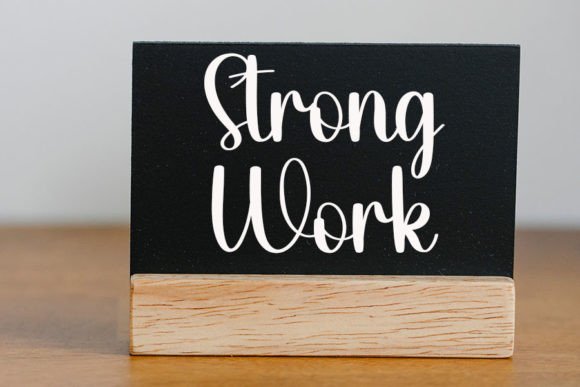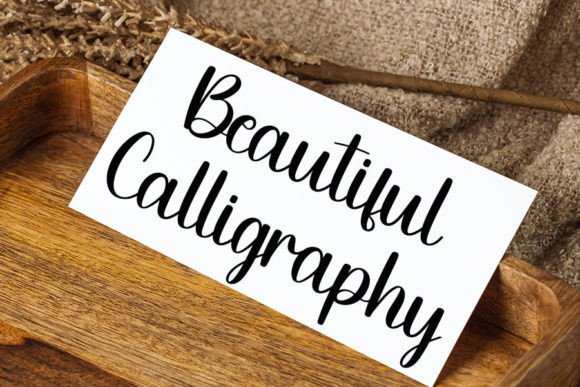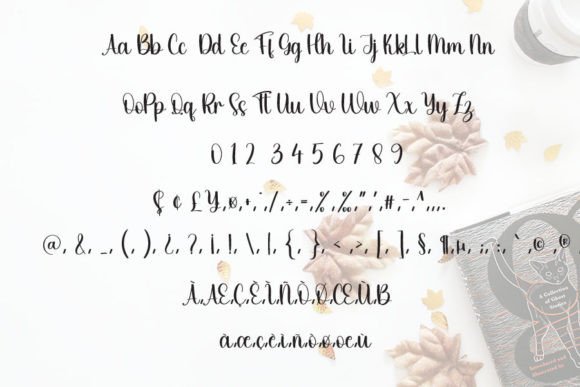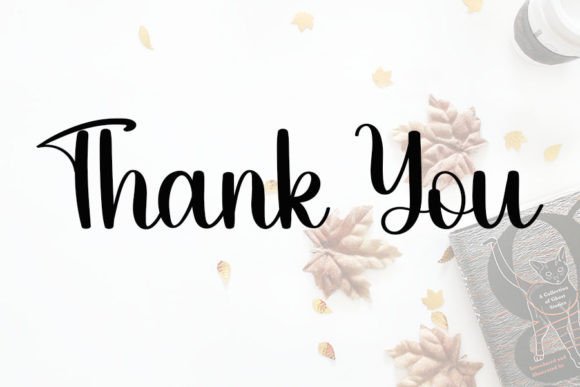
Introducing Autumn Font: The Perfect Handwritten Companion for Designers and Crafters
Are you on the hunt for a font that can add a personal touch to your digital designs, crafts, presentations, and greeting cards? Look no further than Autumn Font, a fun and friendly handwritten font that’s sure to become your new favorite. In this article, we’ll dive into the world of Autumn Font, exploring its features, benefits, and uses, and why it’s a must-have for designers and crafters alike.
The Charm of Autumn Font
Autumn Font is a beautifully crafted handwritten font that’s perfect for adding a touch of warmth and personality to any project. Its unique charm lies in its imperfect, hand-crafted feel, which gives it a distinctly friendly and approachable vibe. Whether you’re creating digital designs, crafting handmade cards, or designing presentations, Autumn Font is the perfect companion to help you add a personal touch.
Key Features of Autumn Font
- Handwritten style: Autumn Font boasts a beautiful, handwritten style that’s perfect for adding a personal touch to your projects.
- Fun and friendly: The font’s playful and approachable vibe makes it perfect for a wide range of projects, from digital designs to handmade crafts.
- Versatile: Autumn Font is suitable for a variety of projects, including digital designs, presentations, greeting cards, and more.
- Easy to read: Despite its handwritten style, Autumn Font is surprisingly easy to read, making it perfect for body text and headings.
Uses for Autumn Font
So, what can you use Autumn Font for? The possibilities are endless! Here are a few ideas to get you started:
- Digital designs: Add a personal touch to your digital designs, including social media graphics, blog posts, and website headers.
- Crafts: Use Autumn Font to create handmade cards, gift tags, and other paper crafts.
- Presentations: Add a touch of personality to your presentations, making them more engaging and memorable.
- Greeting cards: Create beautiful, handmade greeting cards for special occasions.
Benefits of Using Autumn Font
So, why should you choose Autumn Font for your projects? Here are just a few benefits:
- Adds a personal touch: Autumn Font’s handwritten style adds a personal touch to your projects, making them more relatable and engaging.
- Increases creativity: The font’s playful vibe can help stimulate your creativity, making it perfect for brainstorming and creative projects.
- Versatile: Autumn Font is suitable for a wide range of projects, making it a great addition to your font library.
- Easy to use: The font is surprisingly easy to read and use, making it perfect for designers and crafters of all levels.
Tips for Using Autumn Font
Here are a few tips for getting the most out of Autumn Font:
- Experiment with sizes: Autumn Font looks great in a variety of sizes, from small body text to large headings.
- Pair with other fonts: Try pairing Autumn Font with other fonts to create a unique and interesting contrast.
- Use for emphasis: Use Autumn Font to add emphasis to important text, such as headings or calls-to-action.
In conclusion, Autumn Font is a fun and friendly handwritten font that’s perfect for designers and crafters alike. Its unique charm, versatility, and ease of use make it a great addition to any project. Whether you’re creating digital designs, crafts, presentations, or greeting cards, Autumn Font is sure to become your new favorite go-to font. So why not give it a try and see the difference it can make?